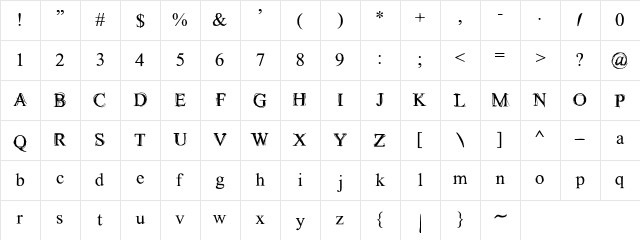
Complete Maudlin Sketch Regular glyph index. Displaying only characters natively supported by Maudlin Sketch Regular font.
Maudlin Sketch is a composed and adaptable typeface that performs quietly and consistently across a wide range of design contexts.